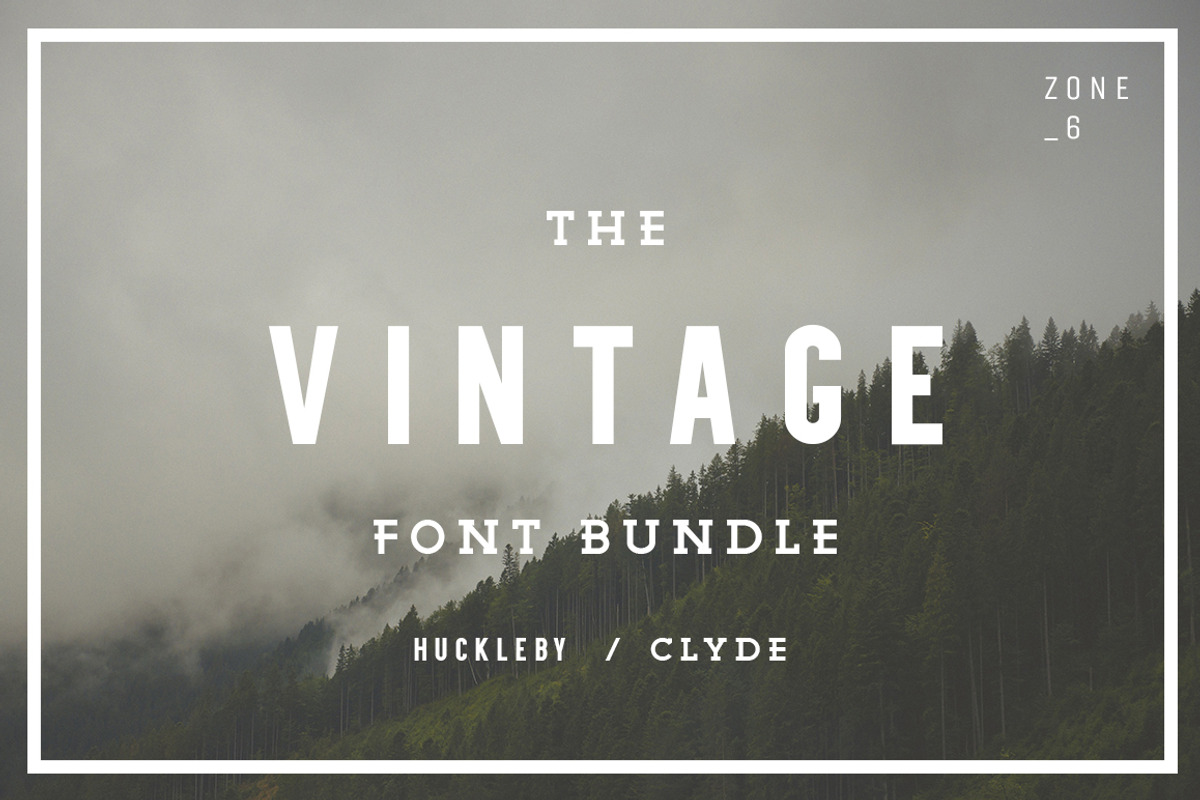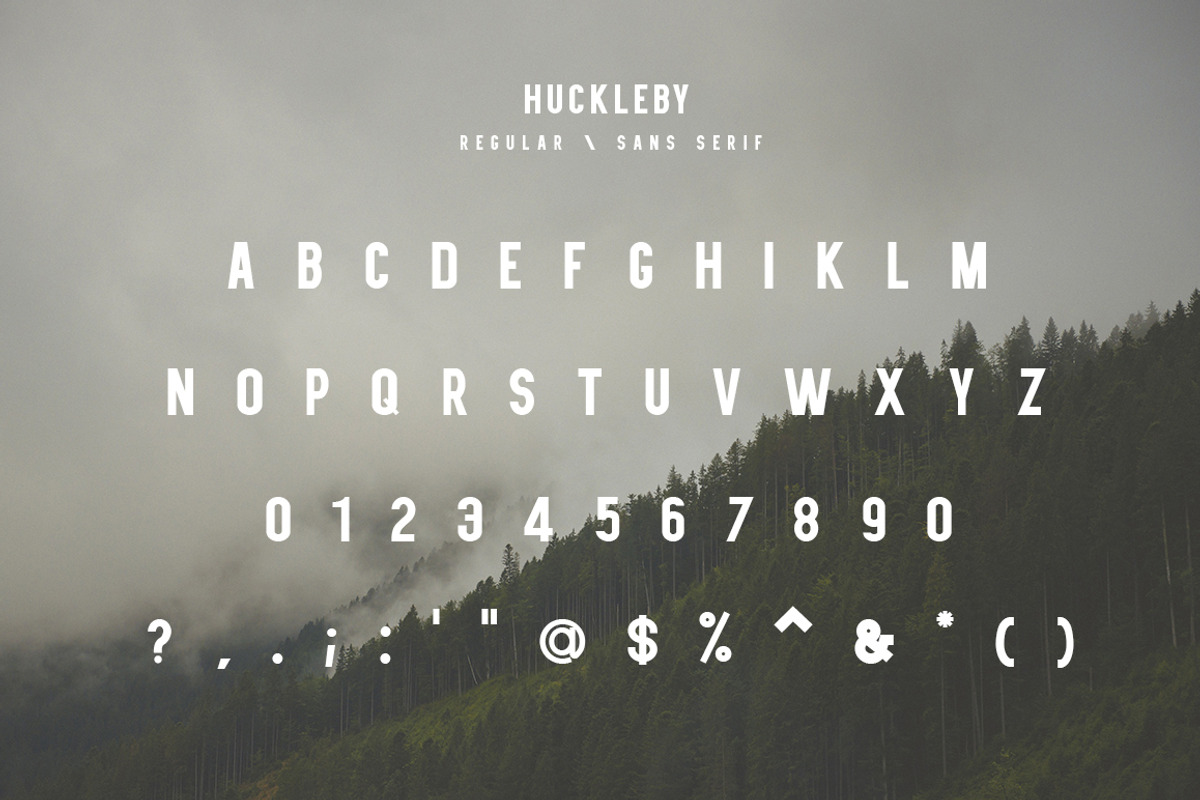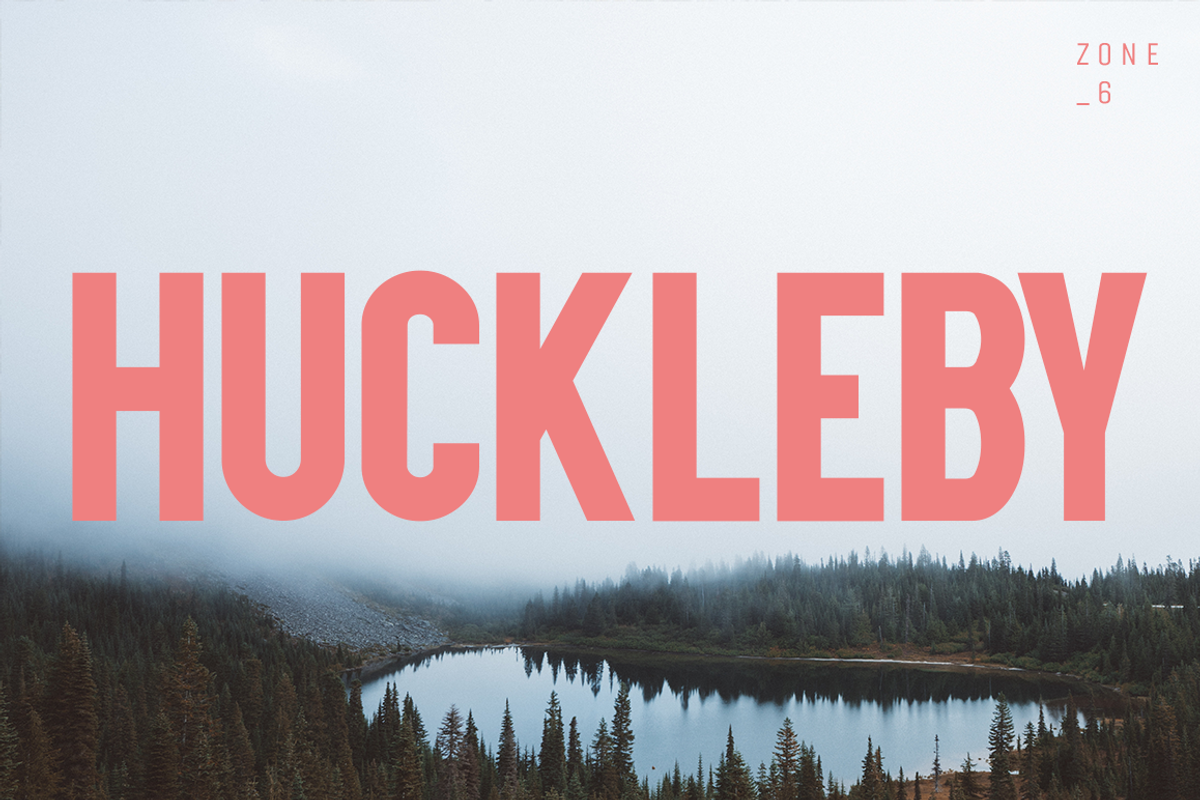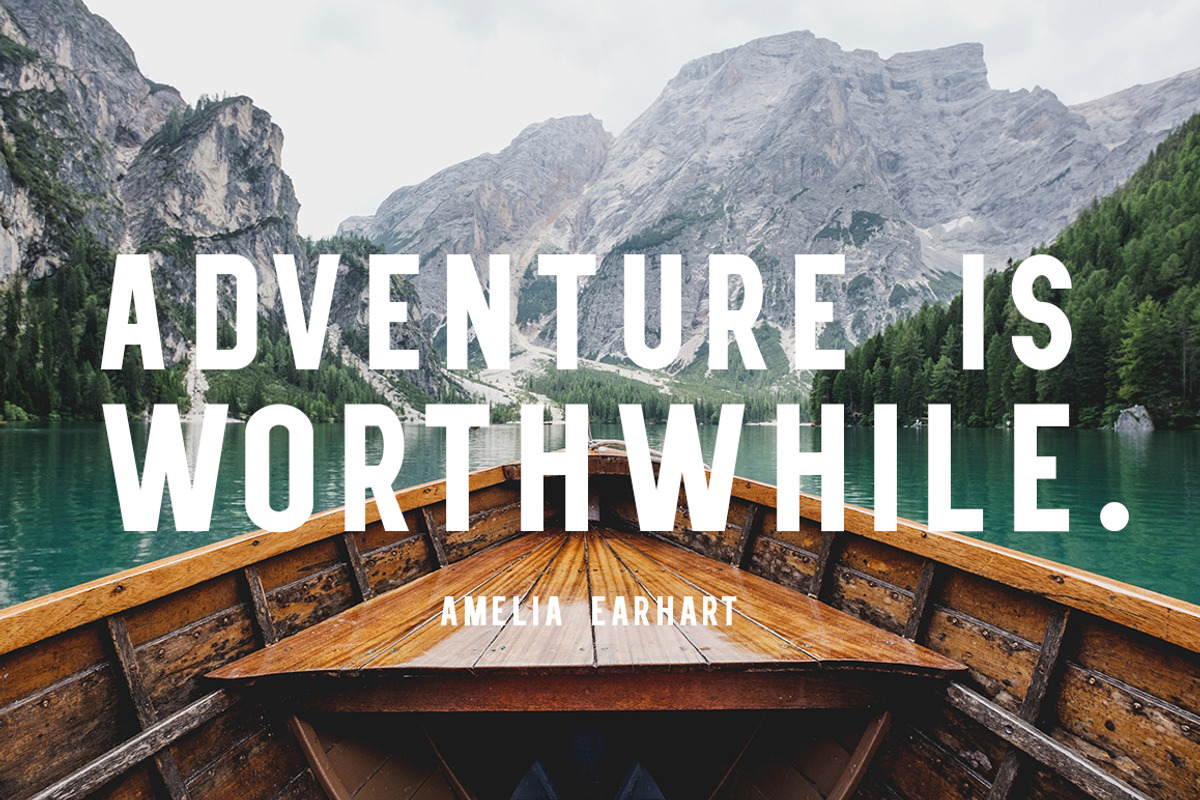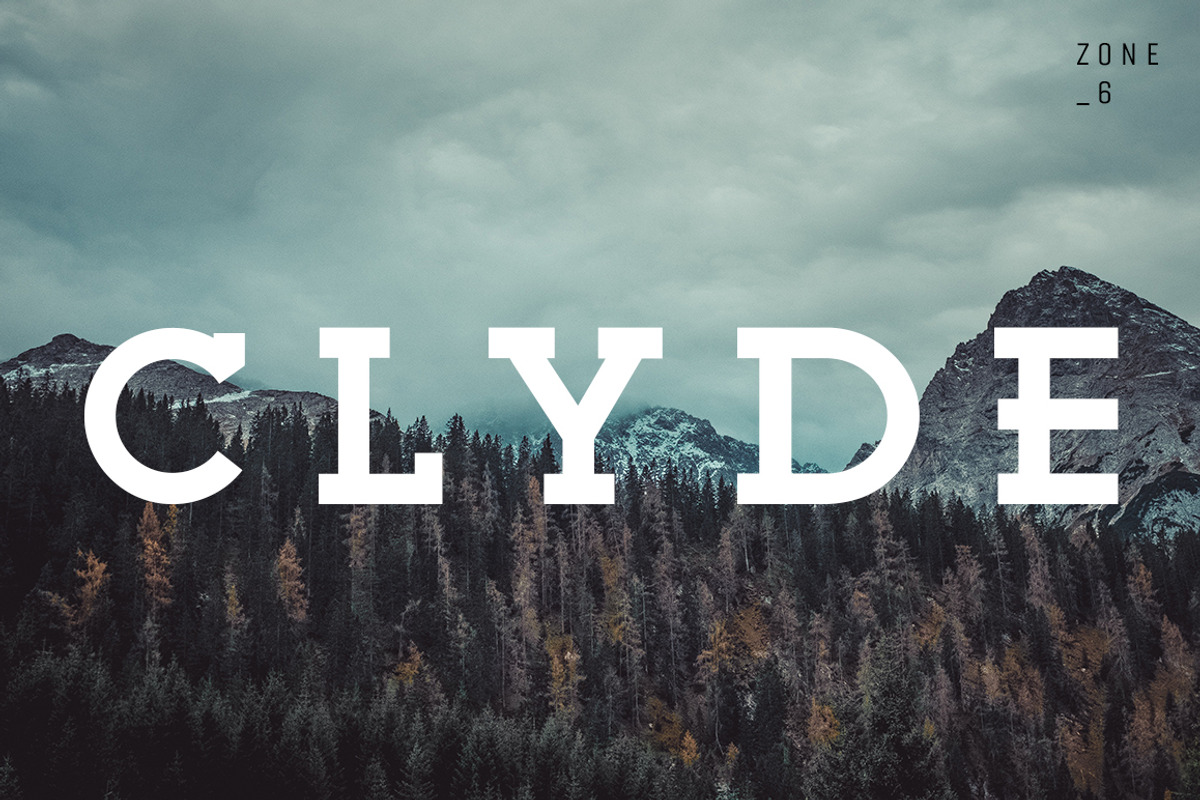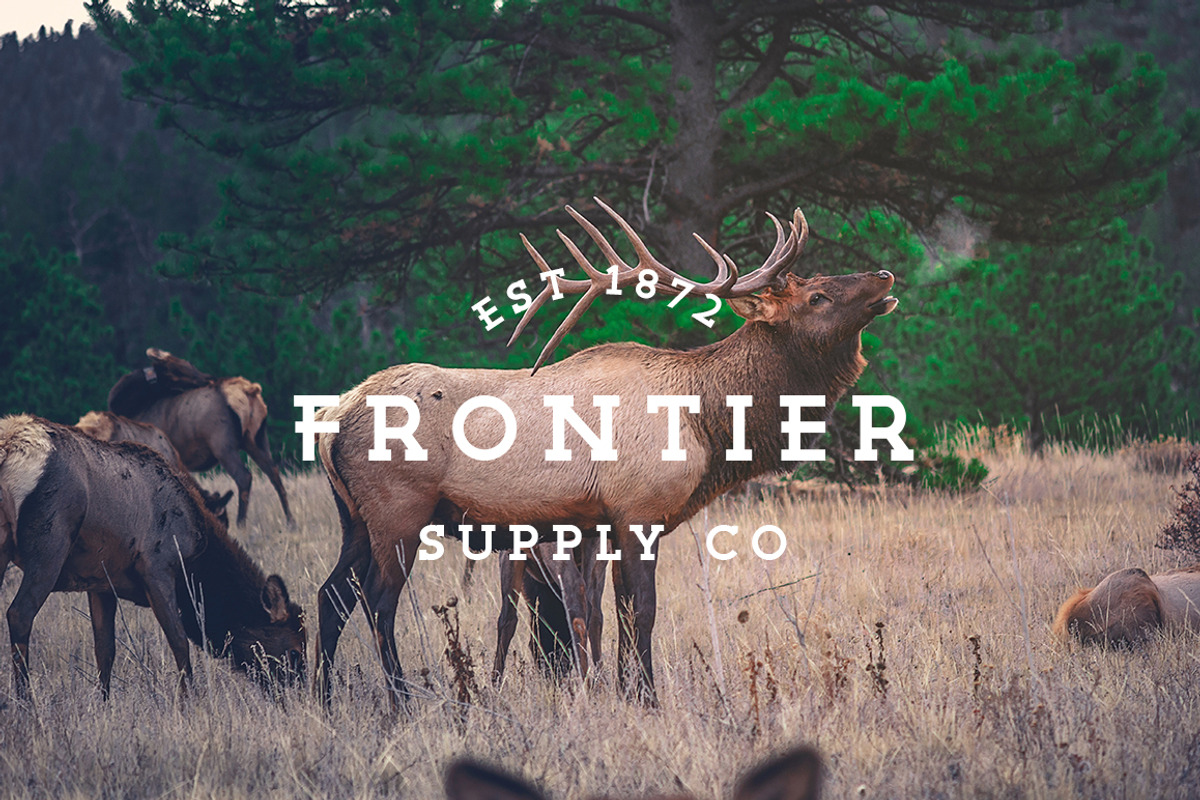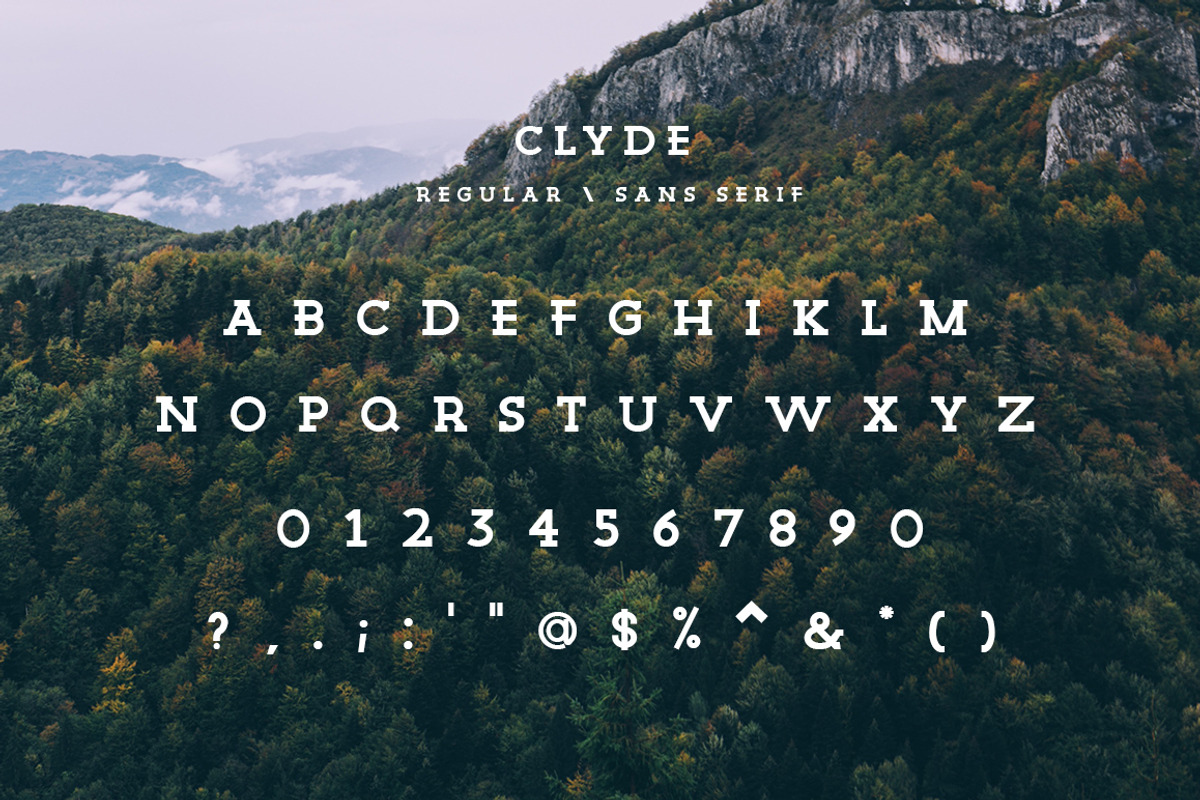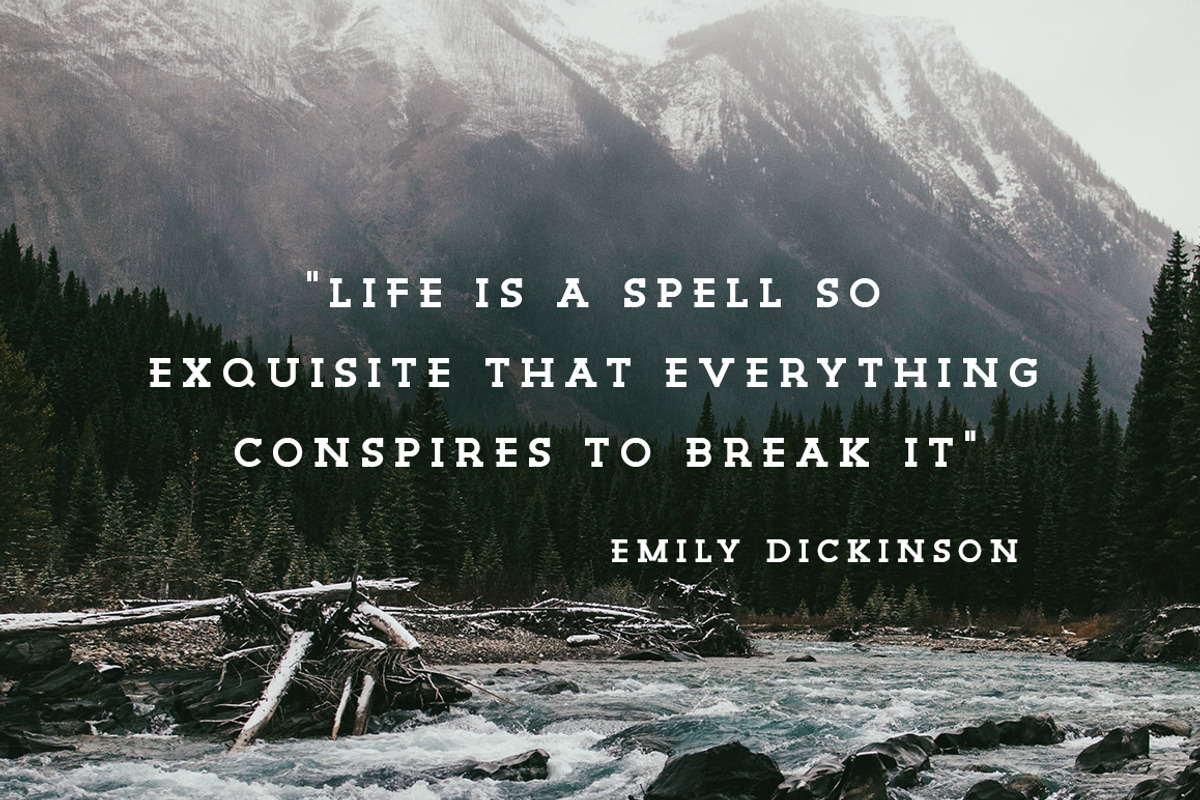
The Vintage Font Bundle
Within this font bundle you receive 2 font families, originally designed to compliment each other and work perfectly for vintage-style projects. Huckleby is a vintage, ‘outdoorsy’ sans serif family. Clyde is a classic slab serif family that looks amazing with Huckleby.
Each font comes with its italic, rounded, and rough versions, so you’ll have plenty of fonts to create great projects with including logotypes, print, branding, and signage.
If you’re looking for a collection of fonts that will work together to create appealing vintage designs then The Vintage Font Bundle is for you.
The Vintage Font Bundle by Zone 6 fits naturally into Branding, posters, packaging, typography.